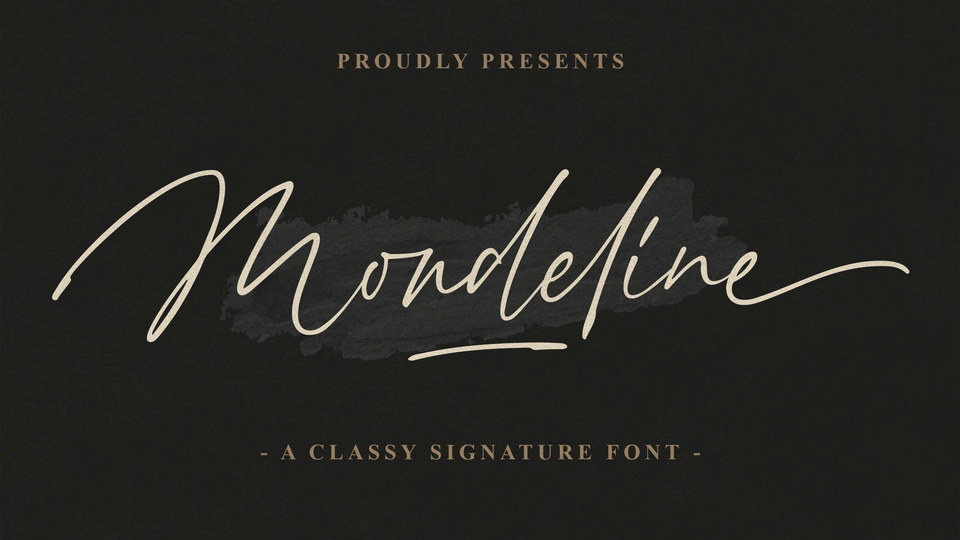
Download Mondeline font, a clean handwritten typeface inspired by signature style. Mondeline font is very good for display, tshirt design, craft, quote sign, logotype and etc.
Designer: Blankids Studio